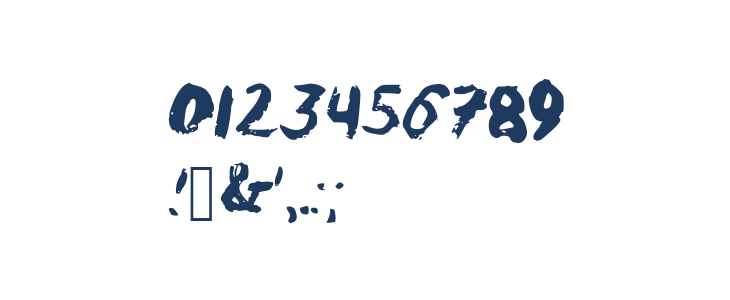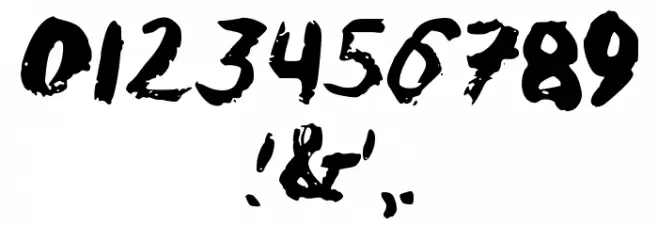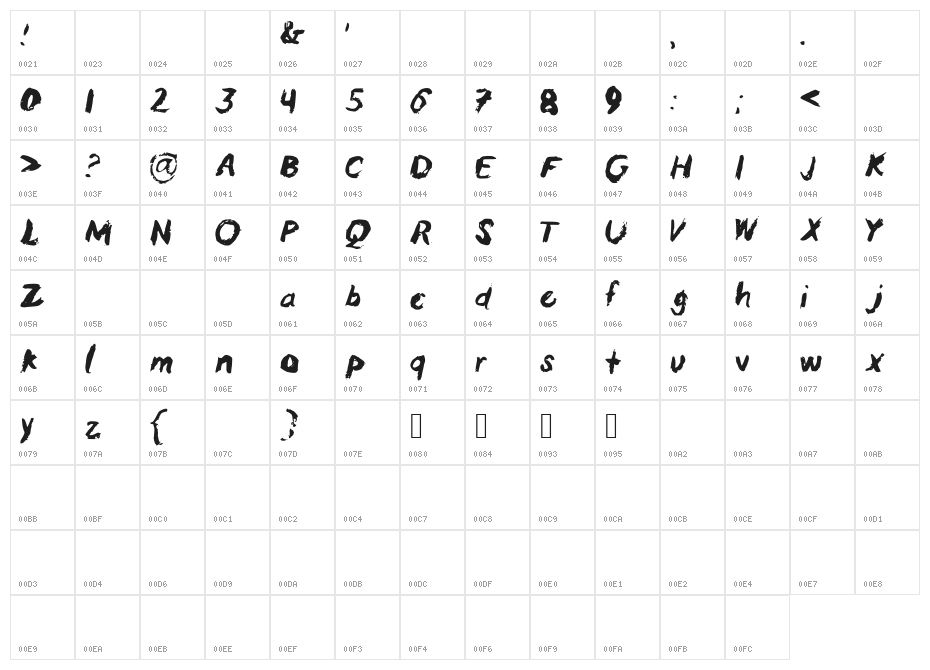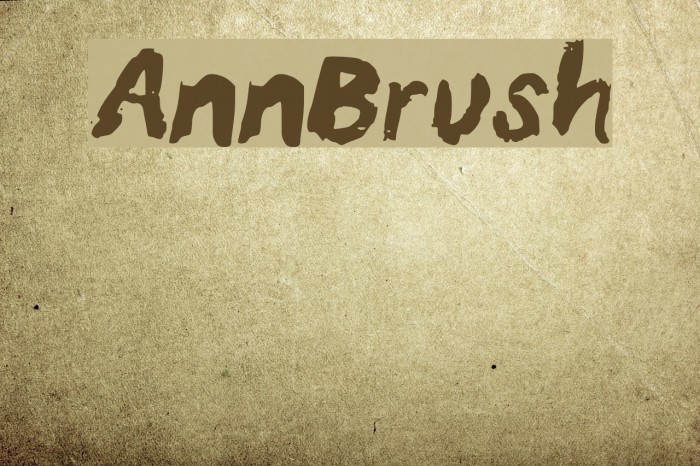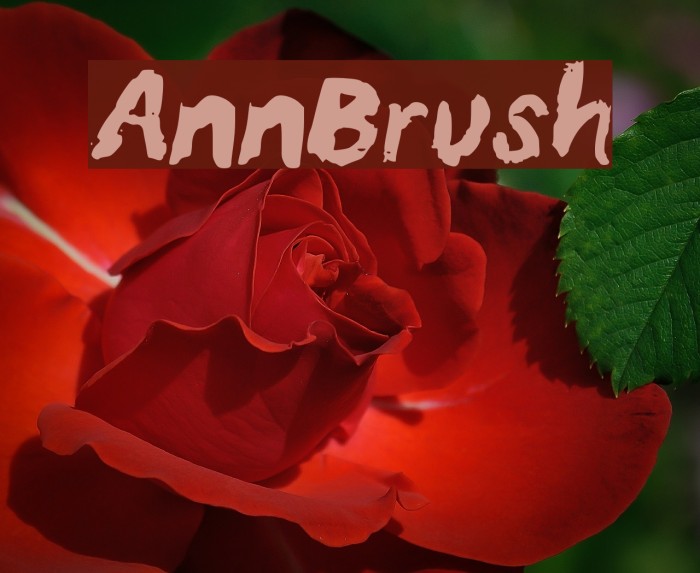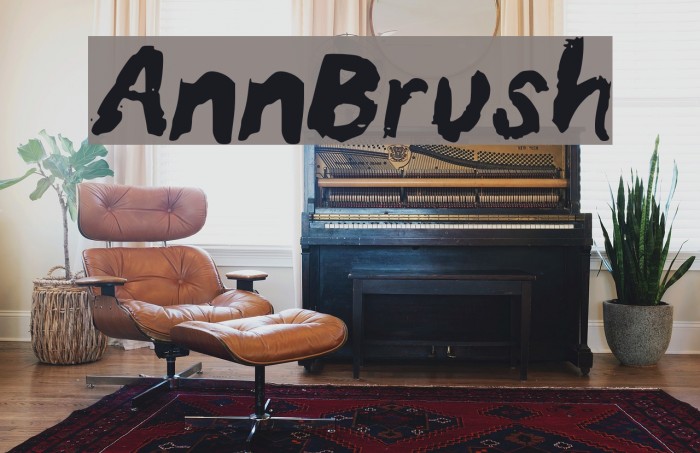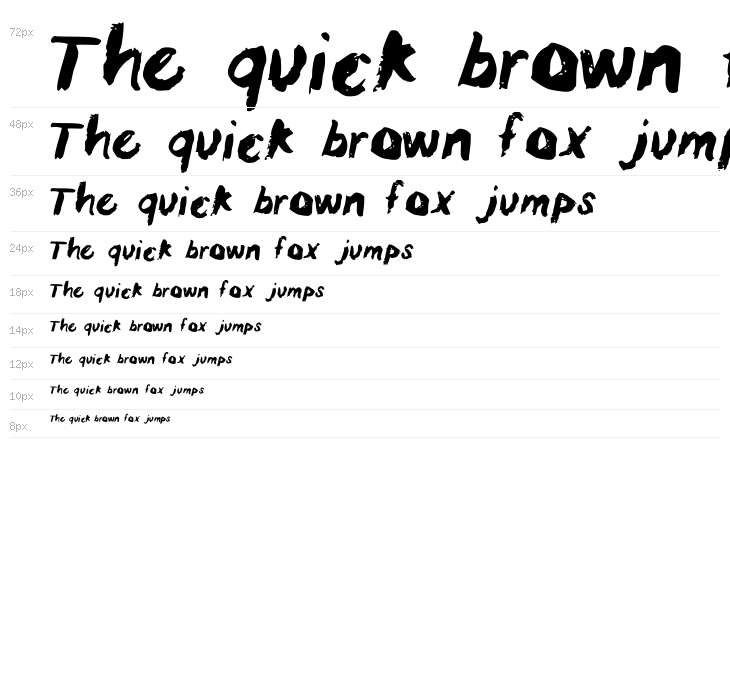
AnnBrush Font
AnnBrush Description
This font features a bold, expressive brush style that conveys a sense of energy and dynamism. The strokes are thick and uneven, mimicking the natural flow of hand-painted letters. Each character has a unique, organic appearance, with varying stroke widths that add to the font's lively and artistic feel. The uppercase and lowercase letters maintain a consistent style, while the numbers and special characters integrate seamlessly with the overall design. This font's raw and textured look makes it ideal for projects that require a personal, handcrafted touch.
| Proposed Projects | Ideal for branding, posters, album covers, and any project requiring a bold, artistic touch. |